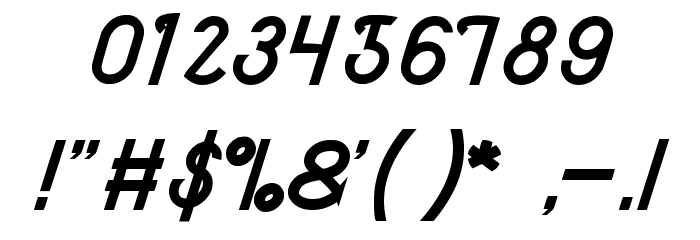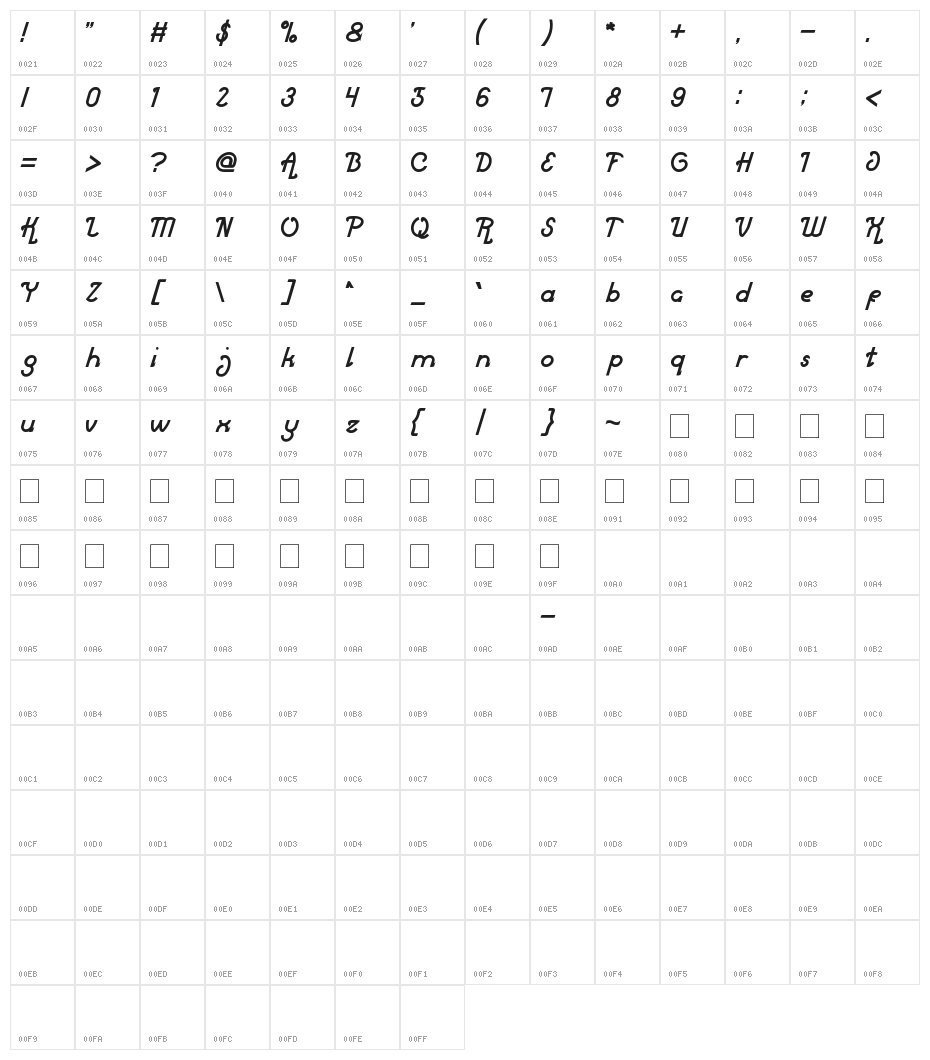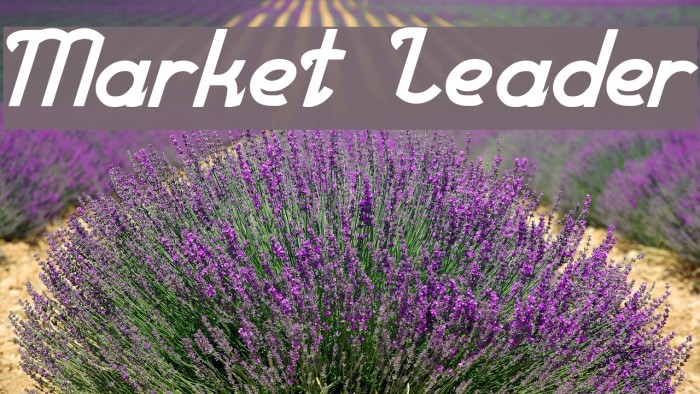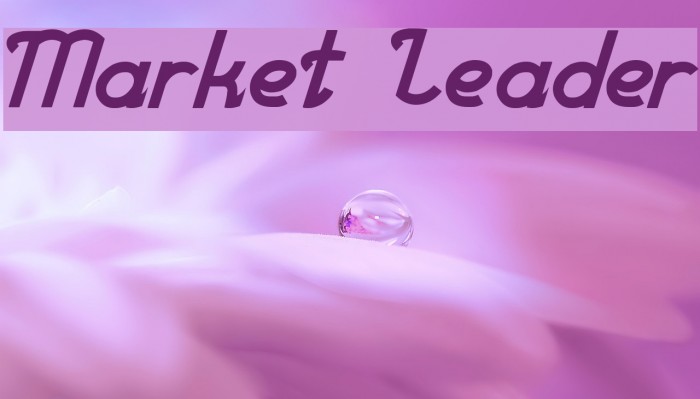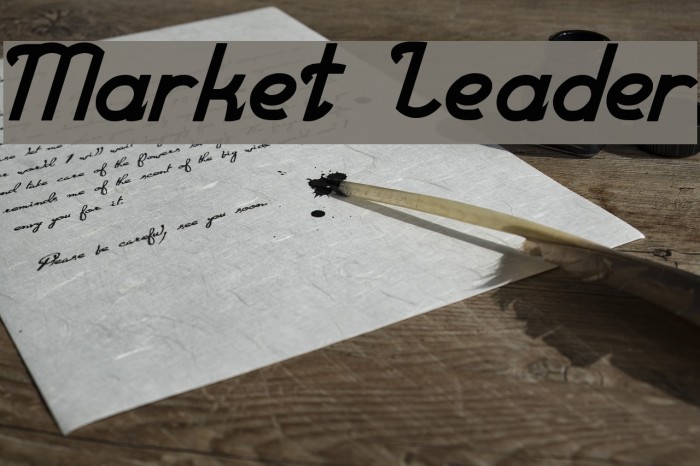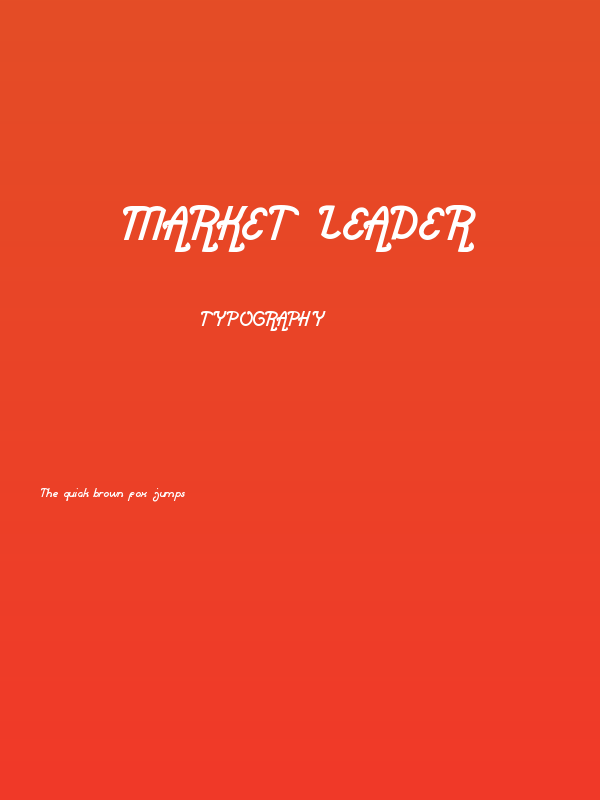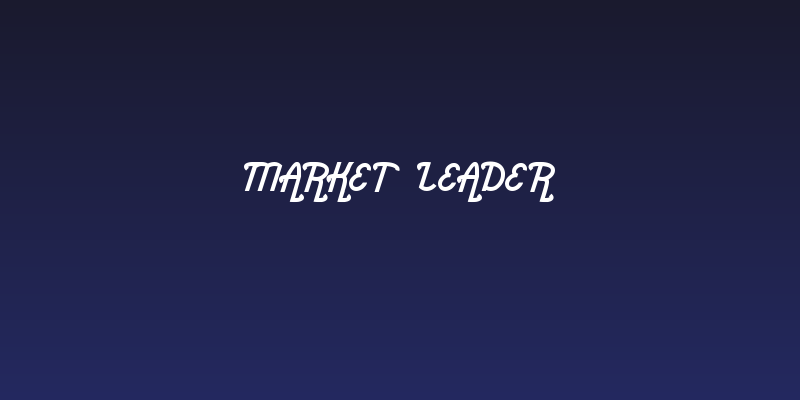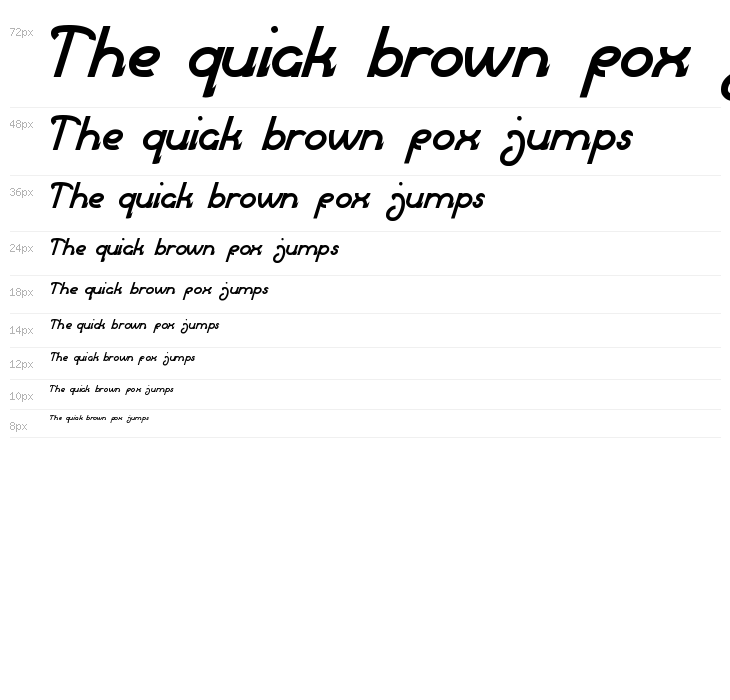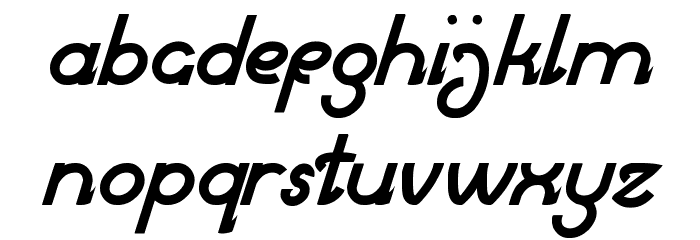
Market Leader Font
Market Leader Description
This font features a bold and dynamic script style with a strong presence. The letters are slightly slanted, giving a sense of movement and fluidity. The strokes are thick and consistent, providing a robust appearance. The uppercase letters are elegant with distinctive loops and curves, while the lowercase letters maintain a cohesive flow. Numbers and special characters are designed to match the overall style, ensuring uniformity across all text. This font is ideal for creating impactful and memorable designs.
| Use Case | Logos, Headlines, Branding |
| Proposed Projects | Ideal for branding, logo design, headlines, and advertising materials where a bold and stylish impact is desired. |